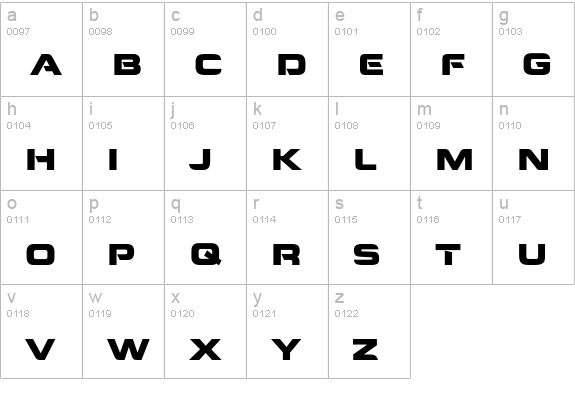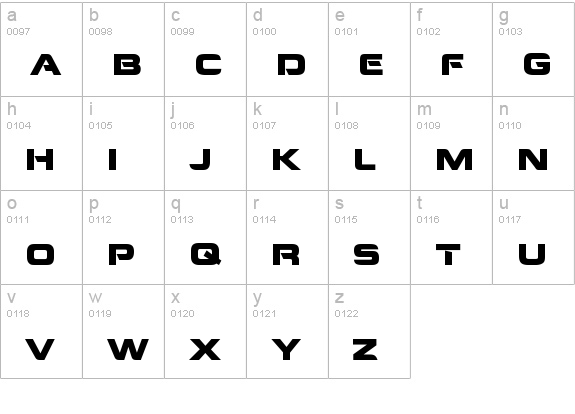
Corporate-Normal is the standard, neutral variant in the Corporate typeface family \xE2\x80\x94 well suited to general body text, paragraphs, and standard typographic work.
Corporate-Normal font exudes professionalism and modernity, making it the perfect choice for a wide range of corporate and business-related projects. Its clean lines and straightforward design provide a sense of reliability and efficiency, while still maintaining a touch of sophistication. This versatile font is ideal for use in presentations, reports, websites, and any other materials where a sleek and polished look is desired. Its neutral and approachable appearance makes it easy to read and ensures that your message is communicated clearly and effectively. Best of all, Corporate-Normal font is available for free download at FontsMarket.com. Now you can enhance your projects with this high-quality font without breaking the bank. Download it today and elevate your designs with the sleek and professional look of Corporate-Normal font.